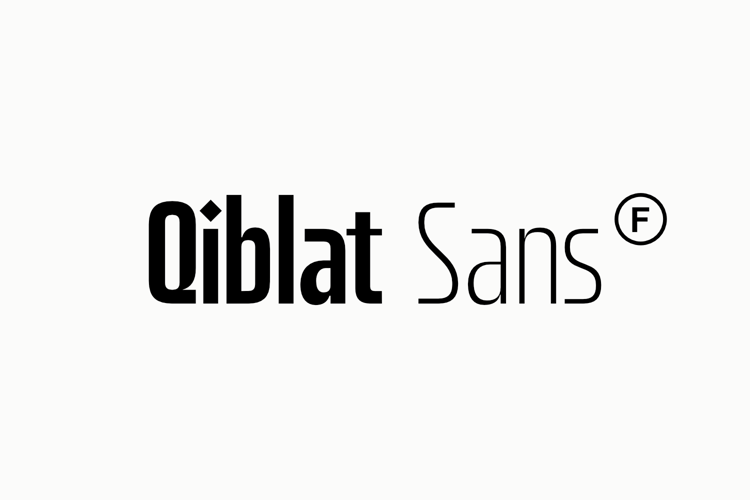
Qiblat Sans Bold Font
About Qiblat Sans Bold Font
Qiblat Sans is the perfect fit for digital design enthusiasts, graphic designers, and fonts aficionados alike. This modern sans serif font exemplifies contemporary design with its calligraphy-style features, allowing you the freedom to create designs in a variety of weights to bring any project to life. Whether you’re creating a sleek logo or refreshing a magazine cover, Qiblat Sans is the ideal font for your digital project. With so much creativity and personality at your fingertips, the possibilities are endless!